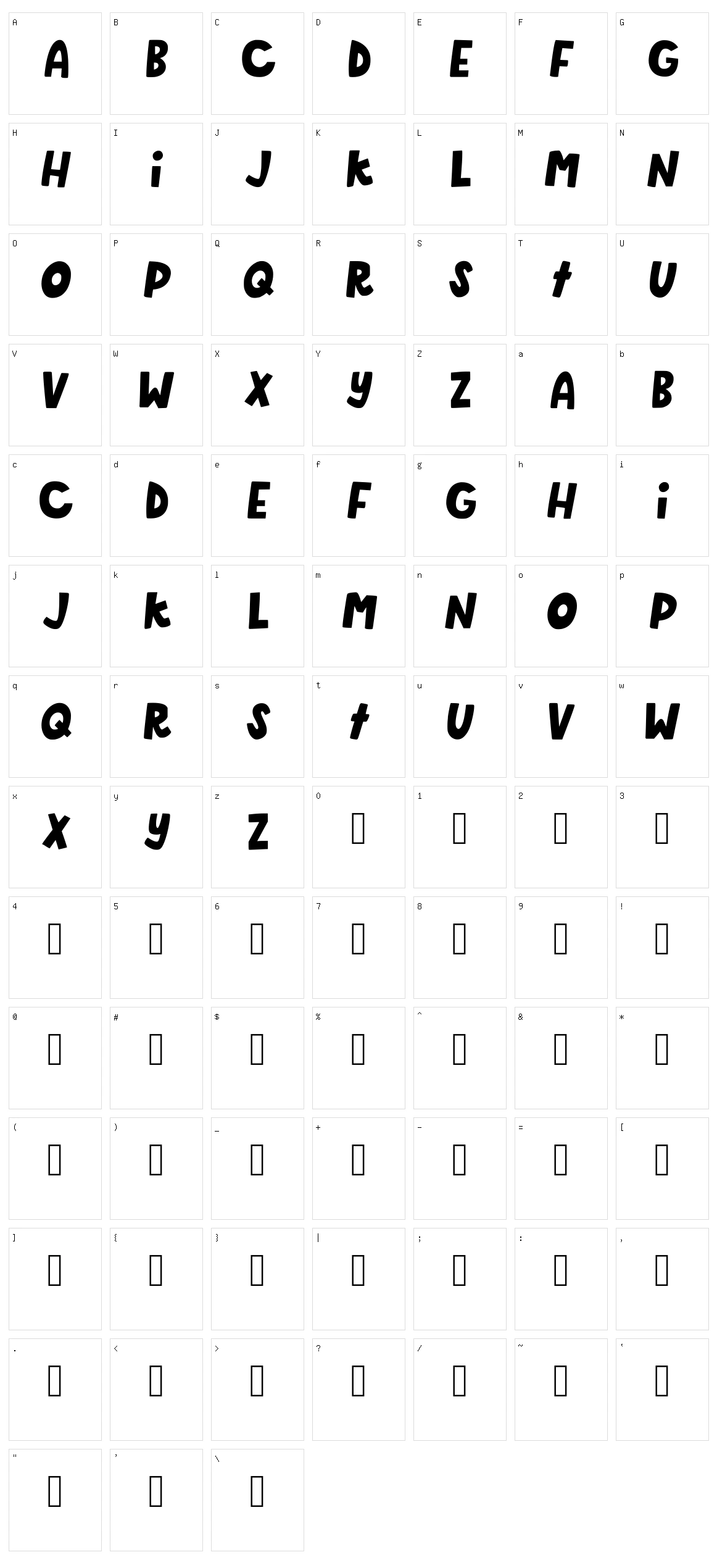
The free font New Adventure is carefully designed by Dylan Hawks, showcasing a thoughtful balance of creativity and usability and falls under the Cartoon font style. When you download the ZIP file, it contains only 7.42 KB of font files, making it lightweight and quick to download. Please review the license details below to understand permitted usage and distribution rights. If license information is not available, we recommend using this font for personal projects only or contacting the author directly for commercial usage permissions.